I think learning about gilroy font embed code is very important for beginners who want clean modern text on websites. When I created my first website I was confused about fonts. Later I learned the right way and that experience changed how I work today.
In this article I will explain the gilroy font embed code in very simple words. We will learn what embed code means why people search for it and how we should use gilroy style fonts safely. If you are new this guide will help you avoid mistakes and save time.
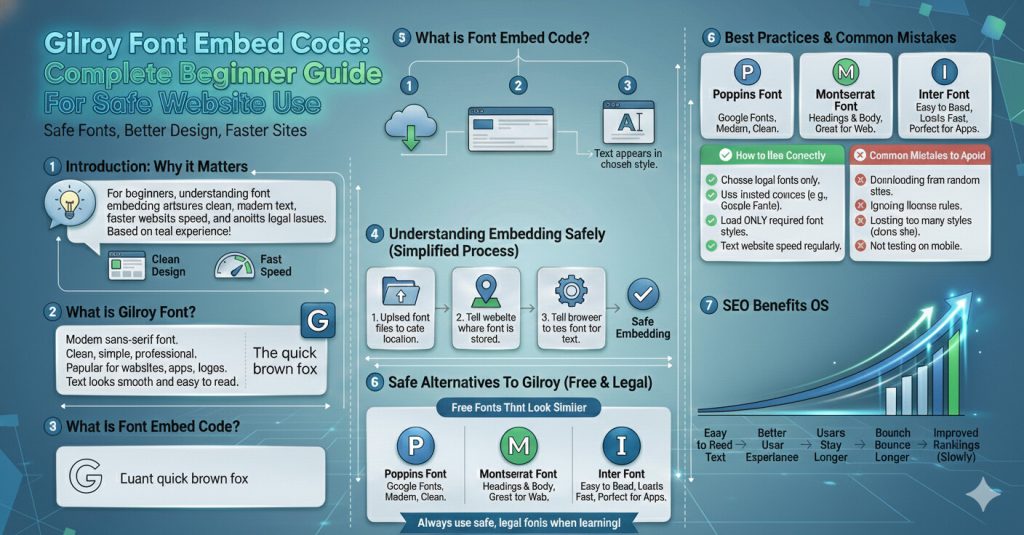
What Is Gilroy Font
Gilroy font is a modern sans serif font. It is popular because it looks clean, simple and professional. Many designers use it for websites, apps, logos and social media. I noticed that text looks smooth and easy to read when gilroy style fonts are used.
What Does Font Embed Code Mean
Font embed code means a method that tells the browser how to load a font on a website. When we open a site the browser checks the code and loads the font files. This is how text appears in the chosen style.
Understanding Gilroy Font Embed Code Safely
It is a method used to load gilroy font on a website through font files and browser instructions.
Can beginners use the gilroy font?
Beginners should first learn with free fonts. Buy gilroy only when needed.
Which free font is closest to gilroy?
Poppins and Montserrat are very close and easy to use.
Conclusion
I think beginners should understand that gilroy font embed code is not just about copying something. It is about using fonts safely and smartly. We should respect font creators and protect our websites.
Focus on readability speed and user experience. When you grow then invest in premium fonts.
This guide was written from real experience so that you do not repeat the mistakes I made. If you follow these tips your site will look clean, load fast and stay safe.